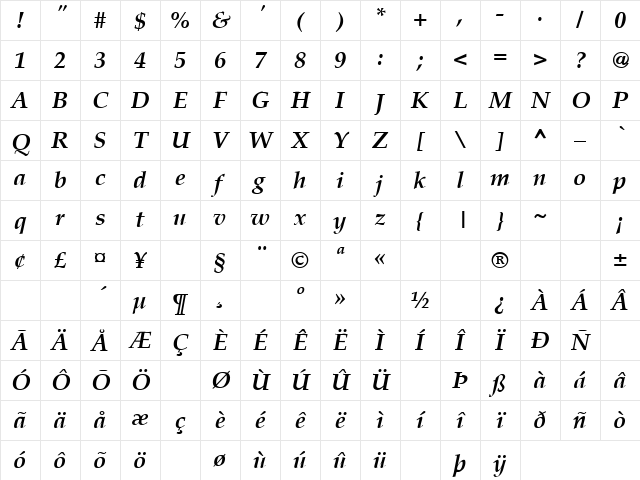
Whipping Post 9 Regular
Design Context for Whipping Post 9
Whipping Post 9 is a composed and adaptable typeface that performs quietly and consistently across a wide range of design contexts.